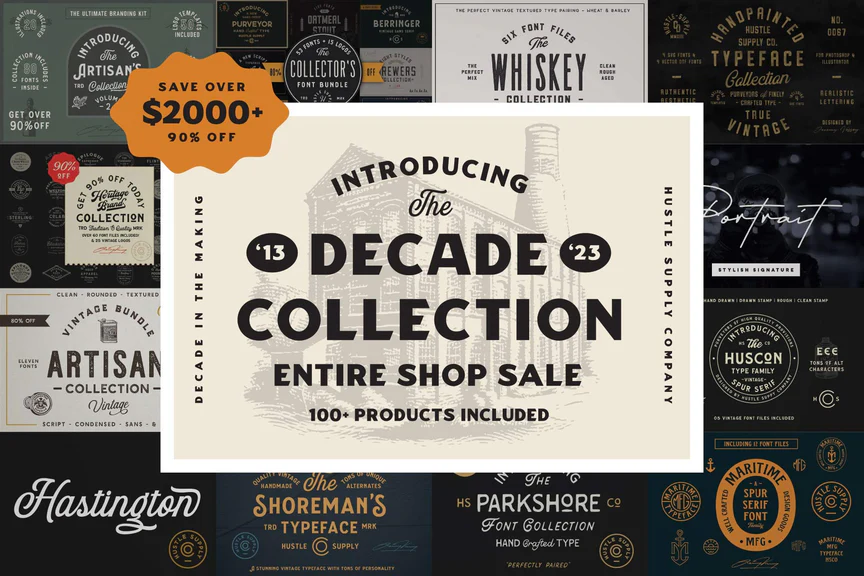
Discover the charm of vintage fonts collection that offers a unique blend of nostalgia and creativity for your design projects. With over 100 meticulously crafted typefaces, this collection is pivotal for every graphic designer seeking to evoke the retro essence in their work. Dive into an unparalleled assortment of vintage typefaces by Hustle Supply Co, where affordability meets artistry, offering you premium quality at an unbeatable price of just $99. Not only does this selection include stylish display typefaces, but it also ensures versatility with options ranging from serif to hand-drawn scripts. Whether you’re launching a brand, developing packaging, or working on Print on Demand services, this vintage fonts collection provides everything you need to leave a lasting impression.
Explore the timeless allure of retro typographic styles with an extensive assortment of affordable fonts that can transform your visual projects. This curated compilation features display typefaces that resonate with craftsmanship and historic significance, making them essential for designers aiming to infuse their work with character. Featuring offerings from renowned producers like Hustle Supply Co, the selection includes an array of vintage typefaces suitable for any creative endeavor—from branding to personalized gifts. Each typeface captures the distinctive flair of past eras, allowing you to seamlessly integrate a touch of nostalgia into contemporary design. Enhance your projects with diverse options that are not just functional but also visually captivating.
Unprecedented Value in Vintage Fonts
A Versatile Collection for Every Design Need
The Decade Collection is not merely a assortment of fonts; it is a celebration of diverse styles that pay homage to bygone eras. Whether you are looking to evoke the charm of vintage advertisements or create modern designs with a retro twist, this collection has a font tailored for your needs. With scripts that flow elegantly for wedding invitations to bold hand-drawn typefaces perfect for eye-catching posters, the options are seemingly limitless. Each font has been carefully crafted to ensure that it not only looks stunning but also functions well across various design contexts.
From bohemian spur serifs that capture the spirit of the 70s to industrial beveled typefaces reminiscent of 20th-century signage, each entry in this collection brings its own unique character. The ability to access such a wide range of styles makes it an invaluable resource for designers who desire versatility in their projects. Whether you are an amateur designer or a seasoned professional, The Decade Collection ensures that you are equipped to tackle any challenge that comes your way.
Craftsmanship Behind the Fonts
The fonts in The Decade Collection are the result of over a decade’s worth of passionate craftsmanship by the talented team at Hustle Supply Co. Each typeface has been meticulously designed, ensuring that the authenticity of the vintage styles is preserved. This attention to detail means that every curve, line, and flourish has been considered to create a cohesive and stunning lineup of fonts that speak to various design aesthetics.
Hustle Supply Co. has become synonymous with high-quality typography, and this collection is no exception. Drawing inspiration from a myriad of historical contexts, each font serves not only as a tool for communication but also as an art form in its own right. The thoughtful design process reflective of different eras ensures that these fonts will resonate with audiences, offering both nostalgia and contemporary applicability in design.
Enhancing Your Design Portfolio
A creative collage of various vintage fonts from the Decade Collection, showcasing scripts, serifs, and hand-drawn styles on a textured vintage background.